41 Best Script Fonts: Find the Perfect Signature Font for Your 2026 Projects
Choosing the right typography can make or break your design, especially when you need something that feels authentic and personal. Whether you are working on a massive branding project, designing wedding invitations, or just updating your blog graphics for 2026, adding a beautiful cursive or handwriting style changes the whole vibe. In this roundup, I have put together 41 of my favorite script options available right now. If you have been searching everywhere for that perfect Signature Font to give your work a custom, hand-lettered feel, you are in the right place.
1. Saline Signature Font
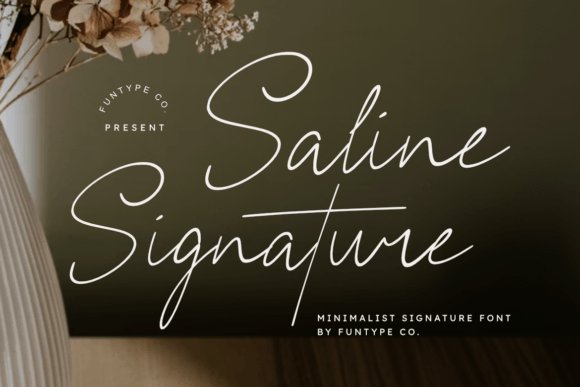
Saline Signature Font stands out as a masterclass in minimalist typography, offering an elegant, monoline flow that perfectly mimics natural handwriting. As a premium signature font, it captures the essence of intimacy and impact, making it an indispensable asset for designers looking to add a personal touch to their projects. Its refined structure balances clean lines with a sophisticated aesthetic, ensuring that every character feels both authentic and polished.
When it comes to real-world applications, this handwritten script truly shines across a variety of high-end design contexts. Whether you are crafting a luxury logo, designing chic boutique branding, or setting up delicate photography watermarks, Saline brings a striking, professional finish to the table. By leveraging this versatile signature font, creators can effortlessly infuse their modern lifestyle designs and corporate identities with a heartfelt, artisanal quality that resonates deeply with audiences.
2. Bastony Signature Font
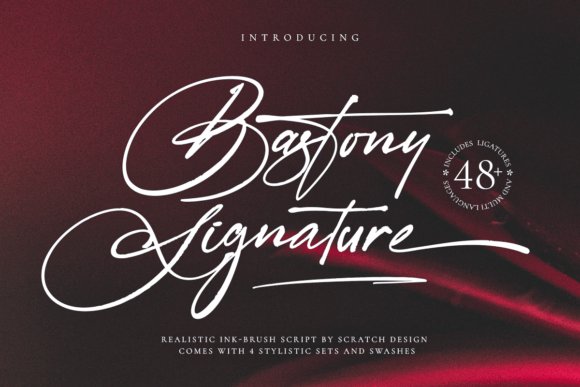
For designers seeking a bold, expressive aesthetic, the Bastony Signature Font delivers an incredibly realistic ink-brush script experience. This typography powerhouse captures the dynamic movement and raw, naturalistic dry brush textures of a genuine hand-painted stroke. Unlike delicate, thin-line alternatives, this dramatic signature font commands attention with its high-contrast weight variations and sweeping, luxurious letterforms. It is crafted to give digital artwork an authentic, bespoke feel that easily bridges the gap between traditional calligraphy and contemporary digital design.
Beyond its striking visual impact, this highly versatile signature font comes fully loaded with over 48 ligatures and elegant swashes spread across four distinct stylistic sets. This extensive character map makes it the ultimate tool for bespoke branding, high-end product packaging, bold magazine titles, and exclusive wedding stationery. If your project demands an unforgettable, handwritten flourish that conveys both artistic flair and premium craftsmanship, Bastony provides the exact dramatic flair needed to elevate your creative portfolio.
3. Buttercake Font
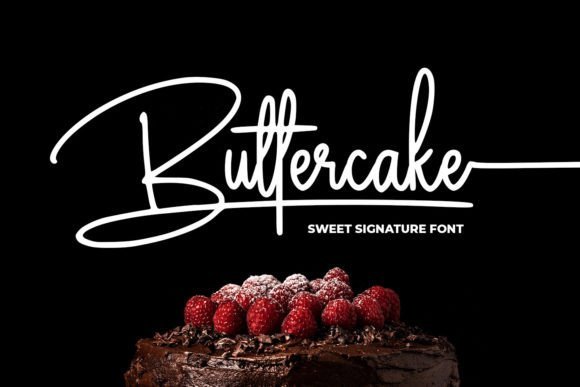
The Buttercake Font is a delightfully sweet monoline signature font that brings a warm, approachable vibe to any creative endeavor. Characterized by its smooth, consistent stroke weight and fluid connectivity, it beautifully replicates the charm of a quick, stylish handwritten note. As an incredibly adaptable signature font, Buttercake offers a relaxed yet refined aesthetic that avoids feeling overly formal, making it an absolute joy to use for designs that require a personal, friendly, and inviting tone.
This charming handwritten script proves to be exceptionally versatile across a multitude of everyday and commercial design projects. Its legibility and casual elegance make it a top choice for crafting memorable logotypes, playful apparel graphics like t-shirts and tote bags, and eye-catching social media banners. By incorporating this lovely signature font into your boutique branding, custom greeting cards, or retail packaging, you easily inject a sense of bespoke authenticity that makes your visual messaging feel uniquely handcrafted and deeply engaging.
4. Brighton Signature Font
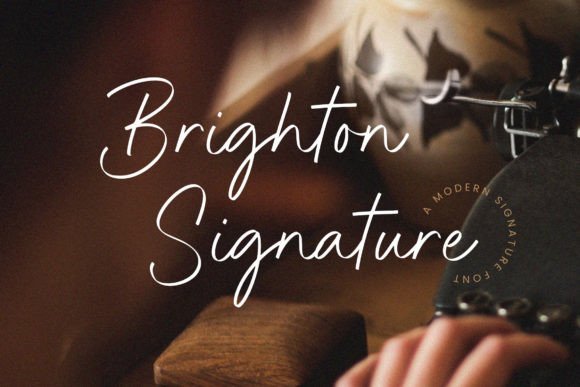
The Brighton Signature Font is a masterful example of a high-end signature font, blending exquisite cursive strokes with an unmistakable air of elegance and sophistication. Crafted to emulate the fluid motion of genuine hand-lettering, this handwritten typeface introduces a bespoke, personal touch to any creative project. Whether you are developing a luxury brand identity or curating an elegant editorial spread, the intricate details and graceful swashes of this script provide an authentic, high-end feel that instantly elevates your typography.
Beyond its stunning visual appeal, Brighton Signature is incredibly versatile and ideally suited for a wide array of applications, from boutique product packaging and chic magazine layouts to elegant wedding invitations and social media graphics. Including both OTF and TTF formats alongside comprehensive multilingual support, this signature style typeface ensures seamless integration into your digital workflow. It is the perfect tool for designers looking to express words with artistic flair, effortlessly transforming a simple background into a captivating visual statement.
5. Sartyan Canish Font
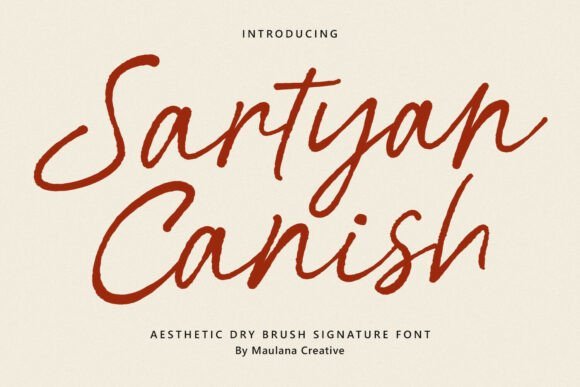
Sartyan Canish is a beautifully sophisticated dry brush signature font that perfectly captures the raw, authentic essence of hand-painted lettering. Unlike overly polished scripts, this typeface embraces a beautifully textured, natural stroke that brings an artistic, deeply personal touch to your typography. By combining the elegant flow of a traditional signature font with the edgy, organic feel of dry brush mechanics, Sartyan Canish delivers a seamless, flowing aesthetic that genuinely mimics real handwriting with effortless, artistic grace.
The elegant yet unrefined aesthetic of this signature style font makes it an absolute must-have for contemporary design projects. It shines brilliantly when used for photography watermarks, upscale branding, lifestyle quote graphics, and stylish social media campaigns that require a touch of human warmth. Complete with a robust set of uppercase and lowercase letters, numbers, punctuations, and carefully crafted ligatures, Sartyan Canish provides designers with all the tools necessary to create striking, cohesive layouts that stand out in any digital or print medium.
6. Jonathan Signature Font
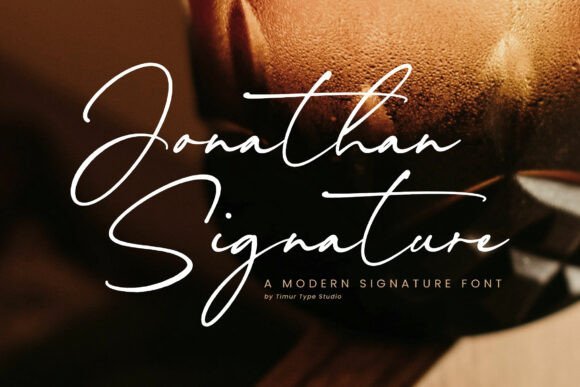
Jonathan Signature stands out as a premier modern signature font, offering a remarkably sleek and elegant aesthetic that breathes life into your typography. This exceptional typeface masterfully blends fluid, cursive strokes with a sharp contemporary twist, resulting in a design that feels both refined and wonderfully casual. Its smooth, flowing lines perfectly capture the essence of a high-end handwritten style, making it an indispensable asset for designers seeking to inject a sophisticated, custom-crafted touch into their visual portfolios.
Highly adaptable for both formal and creative applications, this signature font is the ultimate typographic choice for striking logos, premium branding materials, and upscale event invitations. The natural rhythm of the letters ensures that every word reads like a bespoke piece of art, allowing your brand’s unique voice to shine through with absolute clarity. Whether you are refreshing a corporate identity or designing a luxurious wedding suite, Jonathan Signature provides the perfect balance of professional elegance and inviting warmth.
7. Malinda Signature Font
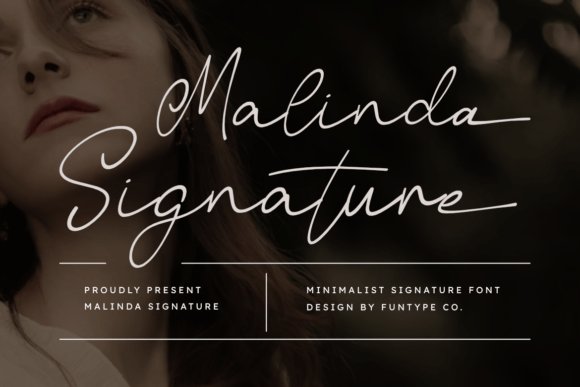
Malinda Signature is an exceptionally beautiful and elegant minimalist signature font, meticulously crafted for designers who demand impactful yet intimate typography. By capturing the essence of a custom handwritten script, it delivers a refined structure paired with a natural monoline flow. This digital signature aesthetic breathes a sense of bespoke luxury into any creative project, allowing your text to feel both striking and deeply heartfelt. It is an ideal choice for creatives looking to elevate their visual identity with a sophisticated handwriting style.
The versatility of this signature font makes it an indispensable asset for a wide array of high-end applications. Whether you are developing chic branding materials, designing minimalist photography watermarks, or constructing modern lifestyle luxury logos, Malinda seamlessly adapts to your needs. Its clean, legible strokes ensure that your visuals maintain a professional polish while still offering that coveted, authentic personal touch that clients and audiences adore.
8. Young Bentley’s Font
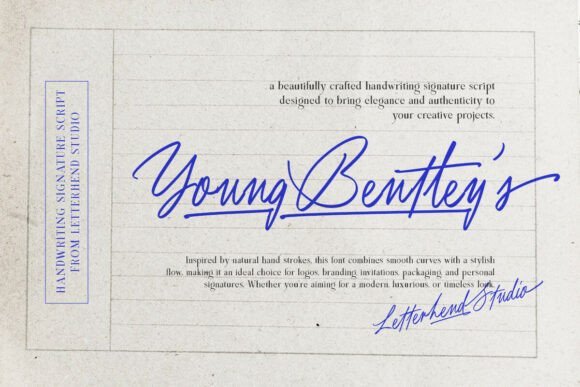
Young Bentley’s is a remarkably stylish handwritten signature font defined by its smooth, natural curves and an effortlessly elegant flow. It masterfully mimics the organic look of genuine pen strokes, instantly injecting modern charm and authenticity into your typographic layouts. By offering the nuanced imperfections of real cursive handwriting, this versatile signature font adds a layer of bespoke class to your designs without ever feeling forced or overly ornate. It is the quintessential typeface for conveying an upscale, yet approachable, brand voice.
When it comes to practical application, this elegant handwriting style shines across a multitude of mediums. It is an absolute standout for sophisticated logo design, high-end branding packages, boutique invitations, and premium product packaging. If your project demands a refined handwritten touch that feels like a personalized digital signature, Young Bentley’s delivers exceptional readability alongside its undeniable aesthetic appeal, ensuring your creative work leaves a lasting impression.
9. Melbourne Lighthouse Font
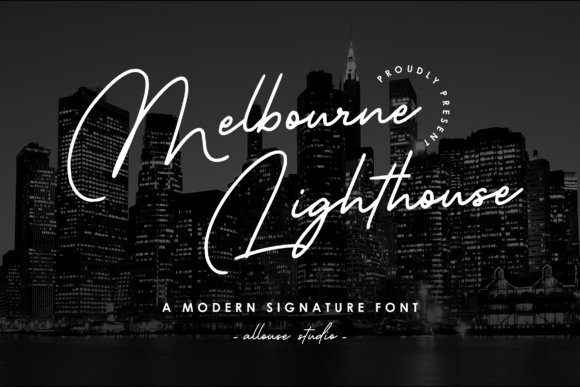
Melbourne Lighthouse stands out as a premier modern signature font, expertly blending contemporary typographic trends with the timeless appeal of authentic cursive scripts. Designed to mimic a swift, confident handwriting style, it effortlessly bridges the gap between casual elegance and professional polish. Every character flows seamlessly into the next, providing a custom hand-lettered aesthetic that transforms standard text into a compelling visual statement. It is a fantastic choice for designers seeking a digital signature font that feels both vibrant and grounded.
The true strength of this modern handwritten script lies in its incredible adaptability across varied design disciplines. Melbourne Lighthouse is perfectly suited for eye-catching product packaging, cohesive branding projects, and striking editorial layouts for magazines. Furthermore, its expressive nature makes it a go-to signature font for wedding invitations, engaging social media graphics, or simply overlaying poetic typography onto evocative background imagery. It guarantees that your message is delivered with a distinct, personalized flair.
10. Salina Script Font
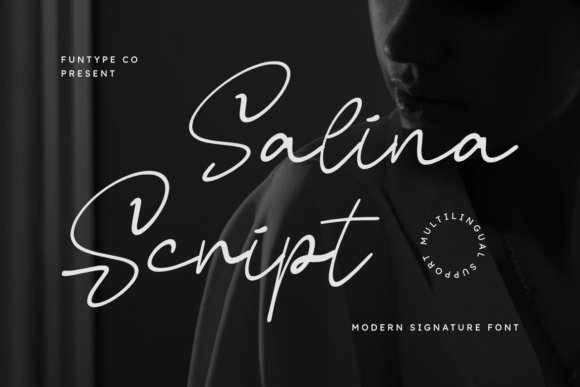
Salina Script is a remarkably beautiful and elegant modern signature font that breathes life into impactful and intimate typography. Crafted with a refined structure and a natural monoline flow, this typeface captures the essence of authentic handwriting while maintaining absolute legibility. It effortlessly bridges the gap between classic calligraphy and contemporary design, offering a versatile solution for creatives seeking a sophisticated aesthetic. The delicate balance of its strokes ensures that every word looks like a carefully penned autograph, making it a standout choice in the realm of script typography.
Ideal for elevating chic branding campaigns, this cursive masterpiece shines beautifully across a multitude of applications. Salina Script acts as the perfect handwritten watermark for professional photography, adding a bespoke, personalized touch to your pristine images. It is equally at home in luxury logo design, modern lifestyle editorials, and upscale packaging. By integrating this fluid, natural script into your workflow, you guarantee a visual presence that is striking, highly professional, and undeniably heartfelt.
11. Welcome Honey Font
Welcome Honey is a remarkably stylish and elegant signature font defined by its exceptionally smooth, single-line design. The distinct monoline flair of this typeface lends it a sleek, free-flowing appearance that beautifully mimics the effortless rhythm of natural handwriting. Unlike heavier scripts, Welcome Honey maintains an airy, delicate presence on the page, making it a stellar option for designers who want to evoke a sense of personalized luxury without overwhelming the viewer. Its clean, continuous strokes radiate a gentle sophistication that immediately captivates the eye.
When it comes to practical application, this authentic handwriting style font excels at adding a classy, intimate touch to practically any creative project. It is highly recommended for crafting elegant boutique branding, romantic wedding invitations, and bespoke social media graphics. Whether used as an eye-catching focal point for a lifestyle blog header or as a subtle, cursive watermark on professional photography, Welcome Honey infuses your designs with an enduring, bespoke charm that truly resonates with audiences.
12. Signature Present Font
Signature Present is a meticulously crafted signature font that effortlessly exudes sheer elegance and timeless sophistication. Designed to inject a touch of personal flair and high-end exclusivity into your projects, this typeface represents the pinnacle of modern digital calligraphy. Characterized by its exquisite strokes, graceful curves, and authentic handwritten feel, Signature Present mimics the fluid motion of a master penman. It stands out prominently with its unique script aesthetic, providing your text with a deeply personalized touch that standard typography simply cannot achieve.
The flowing lines and precise detailing of this elegant cursive font make it a truly versatile and valuable addition to your creative toolkit. It is an impeccable choice for designing opulent wedding invitations, premium business cards, and sophisticated greeting cards where a distinctive, stylish script is paramount. Furthermore, Signature Present is perfect for high-end branding materials, boutique packaging, and photography watermarks, acting as a genuine, luxurious autograph for your brand. By utilizing this exquisite typeface, you ensure your designs radiate a sense of refinement, transforming any everyday layout into a memorable signature piece.
13. Cashmere Font
Cashmere Font is a beautifully fresh, handmade signature font that brings an unmistakable sense of authenticity to any creative project. Designed to mimic the natural flow of real cursive handwriting, this typeface offers a delicate, artisanal aesthetic that instantly elevates your visual presence. Whether you are building a modern brand identity from scratch or simply refreshing an existing one, its fluid strokes and personal touch make it a staple in any designer’s toolkit for crafting logos, bespoke packaging, and striking business cards.
Beyond basic branding, Cashmere truly shines when used as a decorative element to accentuate your products. Its authentic handwritten style makes it an incredible asset for sophisticated social media graphics, elegant wedding invitations, and personalized merchandise. By integrating this versatile signature font into your workflow, you can effortlessly achieve that sought-after, bespoke typographic look that resonates with audiences seeking high-end, individualized aesthetics.
14. Delyra Script Font
Elevate your brand’s visual identity with the effortless grace of Delyra Script, a premier modern signature font designed for creatives who demand elegance. Characterized by its fluid, hand-drawn strokes and beautifully organic rhythm, this captivating typeface masterfully captures the essence of a personal, authentic handwritten signature. The sweeping loops and refined terminals exude a quiet luxury, making it an indispensable asset for conveying a high-end, sophisticated tone across all your marketing materials.
Delyra Script is far more than just a standard cursive typeface; it is a definitive signature of style that transforms ordinary designs into bespoke art. It stands out as the ultimate choice for boutique logos, luxurious wedding stationery, and polished social media branding. Furthermore, photographers and artists will find it exceptionally well-suited for professional watermarks, ensuring their work is protected with a touch of personalized class. If you need a signature font that effortlessly balances professionalism with creative flair, Delyra Script delivers on every front.
15. Jackson Signature Font
Jackson Signature Font presents a masterclass in minimalist typography, offering a classic signature font experience with a beautifully distinct monoline weight. Unlike variable-width calligraphy, its uniform line thickness provides a smooth, contemporary look that perfectly mirrors a sleek pen stroke. This refined handwritten style captures an elegant yet approachable vibe, making it a fantastic typographic centerpiece for modern branding campaigns, minimalist logotypes, and impactful quote graphics that demand attention.
The true power of this monoline signature font lies in its exceptional versatility across both digital and physical mediums. Jackson Signature translates beautifully onto tangible merchandise, making it a highly recommended choice for trendy t-shirt layouts, stylish tote bag prints, and elegant greeting cards. In the digital realm, it effortlessly enhances social media banners and promotional graphics with its authentic handwriting aesthetic. Whether you are crafting a personal blog header or an entire corporate identity, this font delivers a clean, personalized finish that never goes out of style.
16. Smooth Radiance Font
Smooth Radiance is a premier signature font that effortlessly mimics the organic, flowing movement of a natural handwriting style. Crafted to bring an air of elegance to your typography toolkit, it offers designers a remarkable level of customization. With two distinct uppercase variations and an extensive library of stylistic alternates and ligatures, this typeface allows you to construct a completely bespoke autograph style. The fluidity of the strokes ensures that every word looks authentically penned, bridging the gap between digital typography and human artistry.
When it comes to practical application, Smooth Radiance truly shines in high-end branding and identity projects. It is an exceptional choice for designing sophisticated logos, personalized photography watermarks, and elegant wedding invitations. By integrating this versatile script into your printed materials or digital assets, you instantly elevate the composition with a handcrafted, professional finish. Whether you are developing a luxury boutique’s visual identity or curating a lifestyle blog, this handwritten signature font provides the perfect blend of readability and bespoke charm.
17. Father Days Font
Elevate your creative projects with the authentic, grounded aesthetic of the Father Days Font. This distinctive handwritten signature font brilliantly captures the raw essence of a natural pen stroke, merging an organic, spontaneous flow with a bold and sophisticated character. Designed to feel deeply personal yet refined enough for commercial use, its sharp, elegant curves establish a premium visual hierarchy that commands attention in any composition. It avoids the overly delicate lines sometimes found in script typography, offering instead a confident, assertive autograph style that resonates with modern audiences.
Father Days is highly adaptable, making it the ultimate typographic choice for high-end branding, luxury logos, and editorial layouts that require a bespoke human touch. It excels beautifully as a professional watermark for photography, ensuring your brand stands out without overpowering the imagery. From crafting upscale wedding stationery and fashion branding to curating engaging social media quotes, this signature font injects a timeless yet contemporary feel into your designs. By leveraging its uniquely tailored letterforms, designers can effortlessly forge a memorable, cohesive identity across both digital and print mediums.
18. Perfect Signature Font
True to its name, the Perfect Signature Font is a captivating handwritten typeface engineered to infuse your design projects with an unmistakable air of elegance and sophistication. Defined by its fluid strokes, varied baseline, and impeccably balanced letterforms, this signature font flawlessly replicates the nuanced pressure and pacing of real cursive handwriting. It captures the very essence of a personal touch, allowing digital designs to radiate authenticity and bespoke craftsmanship. The seamless connectivity between characters ensures a smooth reading experience while maintaining the stylistic flair of a master penman.
Ideal for a multitude of creative endeavors, this typeface serves as a powerful asset for modern branding, upscale event invitations, and striking logo designs. Incorporating the charm of a handwritten signature adds a layer of exclusivity to product packaging, editorial headers, and boutique business cards. Whether you are revamping a high-fashion label or simply need an elegant script for a personalized project, the timeless beauty of this font guarantees a lasting impression. Embrace this versatile typography solution to elevate your visual identity with grace and professional polish.
19. Signature Font
Welcome to the aptly named Signature Font, a heartfelt and beautifully flowing cursive typeface that is intricately entwined with an artisanal touch. This signature font captures the essence of natural handwriting, delivering a delicate design that brings a harmonious equilibrium to a diverse range of artistic pursuits. Its graceful letterforms effortlessly instill a delightful and amorous atmosphere, challenging design norms and propelling every digital or print canvas into the extraordinary. Whether you are seeking that perfect handwritten aesthetic or a cursive style with authentic texture, this typeface delivers unparalleled warmth.
It stands out as the optimal choice for creating unique brand identities and sophisticated, bespoke logos. When applied to wedding materials or intimate greeting cards, this signature style script renders an elite, personalized feel that resonates with recipients. Furthermore, it effortlessly elevates fashion brochures, lifestyle blogs, and promotional campaigns to the realm of luxury and elegance, infusing them with an undertone of relaxed refinement. Transcend the realm of the ordinary and give your next creative project a truly custom vibe with the charming understatement of this versatile signature font.
20. Bellissa Signature Font
Introducing the Bellissa Signature Font, a modern signature font crafted with exceptional natural precision to replicate the authentic fluidity of human penmanship. This signature typeface is an absolute dream for graphic designers focused on upscale branding, immersive websites, and high-end editorial designs. Every stroke and curve has been carefully engineered to mimic the confident sweep of a high-quality ink pen, bringing a striking, personalized touch to your visual assets. Complete with comprehensive multilingual support, essential punctuation, and beautiful stylistic ligatures, this script font offers everything you need to craft seamless text.
Beyond its foundational features, the Bellissa Signature Font excels in applications where elegance and authenticity must coexist. It is the perfect handwritten font for crafting memorable photography watermarks, boutique logos, and engaging social media headers that demand a custom, signature style. By blending contemporary chic with the timeless appeal of an authentic signature font, Bellissa empowers creatives to build brand narratives that feel both deeply personal and highly professional. Elevate your typography toolkit with this magnificent cursive script.
21. Stylish Signature Font
The Stylish Signature Font is a modern handwritten script typeface that perfectly captures the refined elegance of natural penmanship with its beautifully flowing style. Defined by its long, sweeping strokes and delicate curves, this signature font is an exceptional choice for designs that require a highly personal and sophisticated touch. The typeface flawlessly combines smooth legibility with undeniable artistic flair, giving every single word a graceful and authentic appearance. Whether you are aiming for a minimalist aesthetic or a lush, luxurious design, this versatile signature style script adapts seamlessly to your creative vision.
Ideal for crafting high-end branding, bespoke wedding invitations, and memorable logos, this handwritten font brings a profound sense of charm and professionalism to the table. It is incredibly effective for personal signatures, fashion-forward editorial layouts, social media posts, greeting cards, and premium packaging. With its masterful balance of thin and bold strokes, the Stylish Signature Font conveys both vulnerability and confidence. It remains a go-to choice for creative professionals who want to effortlessly weave a high-quality signature font into their commercial or personal portfolio work.
22. Daily Coffee Font
The Daily Coffee Font is an effortlessly aesthetic handwritten signature font that brings a warm, personal touch to any creative project. Characterized by its unique, uninterrupted flow and relaxed cursive typeface style, this font masterfully mimics the organic feel of real handwriting. As a premium signature font, it strikes the perfect balance between casual elegance and modern readability, making it an essential asset for designers looking to infuse a sense of authenticity into their digital or print media.
When it comes to practical application, Daily Coffee truly shines in lifestyle and feminine branding contexts. It is incredibly versatile, seamlessly elevating cafe or restaurant logo designs, modern wedding invitations, and chic social media graphics. Beyond standard branding, this handwriting-style script is an excellent choice for custom stationery, blog headers, typography art quotes, and personalized merchandise like mugs or apparel. If you need a signature font that effortlessly conveys an inviting and bespoke aesthetic, Daily Coffee is a magnificent choice.
23. Kieran Munroe Font
For designers seeking an elevated sense of luxury, the Kieran Munroe Font emerges as a beautiful and elegantly minimalist signature font. Crafted specifically for impactful yet intimate typography, this typeface features a refined structure accompanied by a natural, unhurried monoline flow. The clean lines and sophisticated curves of this cursive typeface ensure your text remains highly legible while exuding an aura of exclusivity. It captures the authentic essence of a professionally penned autograph, securing its position as a top-tier signature font for high-end markets.
The striking, professional, and heartfelt aesthetic of Kieran Munroe makes it a powerhouse for upscale visual identities. It is flawlessly suited for photography watermarks, luxury boutique logos, and chic lifestyle branding campaigns. Because it provides a polished, modern look without feeling overly ornate, this elegant script also works beautifully for sleek business cards, editorial magazine layouts, and premium packaging design. Provided in both OTF and TTF formats with extensive multilingual support, this versatile signature font integrates effortlessly across all major design platforms.
24. Merysville Font
Merysville Font is a breathtakingly modern signature font that distinguishes itself through its sweeping, decorative tails and undeniably elegant touch. Designed to emulate the fluid motion of a quick, stylish autograph, this handwritten script brings a distinctively timeless style to the table. Its dynamic baseline and organic flow give the illusion of an authentic ink pen, making this cursive typeface an ideal choice for projects that demand a bespoke, handwritten aesthetic. The beautifully crafted swashes transform standard text into a truly captivating visual experience.
The versatility of this elegant signature font makes it an absolute favorite for a wide array of high-profile design projects. Merysville looks absolutely spectacular when featured on romantic wedding invitations, sophisticated thank you cards, and memorable corporate business cards. Beyond event stationery, it acts as a striking focal point for luxury logo designs, modern marketing materials, and engaging social media typography. If you are looking to create a lasting impression with your typography, this standout signature font will undoubtedly help you craft spectacular, unforgettable designs.
25. Sakage Font
The Sakage Font is a remarkably elegant signature font that effortlessly captures the sophisticated essence of a custom handwriting style. With its delicate curves and refined thinness, this script typeface brings a beautifully natural handwritten aesthetic to any design canvas. Unlike many digital fonts that feel rigid or overly uniform, Sakage embraces the subtle imperfections of a genuine ink pen, making it perfect for creatives who want to convey a sense of intimacy and high-end exclusivity through their typography.
This versatile signature font is highly recommended for luxury branding, boutique logos, and elegant editorial layouts. Because of its light weight and fluid motion, it functions flawlessly as a stylish photography watermark or an authentic autograph at the bottom of a personalized newsletter. If you are looking to elevate your next project with a touch of bespoke charm, integrating Sakage into your typography arsenal will undoubtedly leave a lasting, professional impression.
26. This Brother Font
This Brother Font offers a refreshing twist on the traditional signature font by incorporating a highly textured brush style into its sweeping letterforms. This contemporary script typeface balances the casual flow of everyday cursive with the bold, artistic impact of a dry brush stroke. It is incredibly effective at injecting an energetic and youthful vibe into your typography, ensuring your message stands out with a distinctly cool, hand-painted aesthetic that feels both approachable and striking.
The rugged yet legible nature of this brush-style signature font makes it an absolute powerhouse for a wide variety of merchandise and display applications. Whether you are designing custom apparel like t-shirts and tote bags, or crafting eye-catching social media banners and rustic packaging, This Brother adapts beautifully. It is also a fantastic choice for modern wedding invitations and edgy logo designs where a smooth, delicate calligraphy typeface might feel too traditional or soft.
27. Morgause Font
Morgause Font is a quintessentially modern signature font masterfully designed to infuse your creative projects with elegance, personality, and unmatched authenticity. By striking the perfect balance between casual legibility and sophisticated flair, this script typeface delivers a clean, premium signature look that stands out without ever appearing overly manufactured. Every sweeping ligature and tailored letterform in Morgause feels intentional, mimicking the effortless grace of a well-practiced, professional autograph.
Whether you are establishing a new visual identity or simply adding a handwritten touch to your digital presence, this signature font works wonders across multiple mediums. It serves as an impeccable choice for high-end fashion labels, bespoke photography watermarks, and polished editorial layouts. Furthermore, its timeless styling ensures that wedding designs, boutique logos, and social media graphics radiate a luxurious handwritten charm that instantly connects with your audience and elevates your brand.
28. Signature Font
The Signature Font stands as the absolute epitome of sophisticated minimalism, offering a sleek and highly professional aesthetic for modern brand identities. Capturing the effortless, fluid motion of a natural pen stroke, this elegant typography feels as though it was handwritten by a master calligrapher. It is incredibly well-suited for high-end logos, corporate business cards, and customized digital autographs. By incorporating this distinct signature font into your creative workflow, you immediately provide your clients with a profound sense of exclusivity and personalized luxury that mass-produced typefaces simply cannot achieve.
Functionally, the long, horizontal sweeps of this script make it an exceptional choice for header text, editorial layouts, and photography watermarks. Pair this versatile signature font with a bold, all-caps serif to establish a high-fashion visual contrast that feels both contemporary and timelessly classic. Whether you are finalizing luxury product packaging, designing upscale event invitations, or building a boutique brand from the ground up, this modern typeface delivers that crucial finishing touch. Furthermore, its built-in PUA encoding ensures that all decorative swashes and special characters are instantly accessible across your favorite design platforms.
29. Autography Font
Autography Font emerges as a truly gorgeous and fresh take on the classic signature font, infusing every project with an unmistakably modern feel and authentic charm. Designed to mimic the organic flow of everyday handwriting, this elegant script brings a warm, personal touch to any digital or print canvas. Designers and branding experts will quickly fall in love with its natural curves and spontaneous lettering, which perfectly capture the essence of a custom-crafted autograph. It breathes life into creative assets, ensuring your text resonates with audiences seeking genuine, human-centered brand experiences.
This dynamic signature font is an absolute powerhouse for a wide variety of commercial and personal applications, from boutique clothing labels and cosmetic packaging to lifestyle blog headers and social media quotes. The Autography Font pairs beautifully with clean, geometric sans-serifs, allowing the script’s authentic personality to shine as the primary focal point of your layout. With its incredibly versatile letterforms and fluid baseline, it guarantees a stylish, highly readable result that elevates your typography and leaves a lasting, sophisticated impression on your clientele.
30. Rinature Font
Rinature Font is a riveting, highly stylish signature font that pushes the boundaries of personalized typographic design. Carefully crafted to maintain an elegant and readable aesthetic, this typeface captures the beautiful intricacies of cursive handwriting. What sets Rinature apart is its incredible versatility; it comes fully equipped with three distinct variations of uppercase letters and a comprehensive set of lowercase stylistic alternates from A to Z. This flexibility allows designers to seamlessly combine characters, creating a truly bespoke signature font appearance that never looks repetitive or artificially generated.
Highly suitable for a vast array of high-end design projects, this natural script thrives when utilized for logo creation, corporate branding, premium business cards, and boutique product labels. The Rinature Font adds an undeniably sophisticated signature touch to book cover designs, clothing tags, and editorial spreads. By leveraging its extensive alternate characters, you can craft distinct, memorable typographic signatures that instantly elevate your brand’s perceived value. It is the perfect typographical tool for artists and designers who demand both stylistic flair and effortless usability in their daily creative endeavors.
31. Background Signature Font
Capture the intimate, authentic essence of a handwritten note with the Background Signature Font. This delicate, monoline signature font stands out by offering an exceptionally fluid, organic aesthetic that feels genuinely personal. Unlike more rigid cursive scripts, this handwritten typography brilliantly mimics the natural speed and varying pressure of a real pen gliding across paper. The result is a stunning collection of long, elegant descenders and breezy letter connections that feel truly one-of-a-kind, making it a perfect digital signature font for modern creatives.
When it comes to practical application, this versatile signature font is the ultimate tool for crafting sophisticated photography watermarks, personal branding for consultants, and high-end boutique logos. You can seamlessly use it as a striking secondary font on wedding invitations to impart a bespoke signed with love aesthetic, or incorporate it into business card designs for a touch of approachable elegance. It pairs wonderfully with classic serif typefaces, providing a soft, humanizing counterpoint to highly structured layouts. Furthermore, the font supports PUA encoding, granting designers effortless access to its full library of stylistic ligatures and swashes.
32. Brittany Signature Font
Introducing the Brittany Signature Font, a beautifully unique handwritten typeface that masterfully blends graceful cursive elements with refined sophistication. Delicately crafted with a distinctively feminine touch, this signature font elevates digital lettering to an entirely new level of versatility. It possesses an effortless, flowing rhythm that mimics a carefully penned autograph, making it an essential asset for designers looking to infuse a sense of romance and exclusivity into their typography toolkit. Whether you are aiming for a chic, modern vibe or timeless elegance, this script delivers flawless results.
The creative possibilities with the Brittany Signature Font are virtually limitless. Its distinctive, elegant styling is tailor-made for high-end wedding invitations, ensuring your save-the-dates and RSVPs will be treasured as bespoke keepsakes. Beyond event stationery, this handwritten script is highly effective for elevating simple packaging designs, boutique branding, and elegant business cards. It also shines in the digital space; incorporating this signature font into your social media graphics and Instagram quotes will give your posts an irresistible, high-fashion allure that effortlessly captivates your audience.
33. Westonia Font
Westonia Font is a remarkably elegant signature font that effortlessly captures an authentic, casual handwriting style. Designed to reflect the effortless flair of a quick yet stylish autograph, this cursive typeface bridges the gap between sophisticated calligraphy and relaxed everyday penmanship. The beautifully imperfect baseline and smooth, sweeping curves give this signature font a highly realistic, organic energy that breathes life into any canvas. It is the perfect typographic choice for creators who want their designs to feel genuinely human, approachable, and artistic.
Ideal for a vast array of creative endeavors, the Westonia Font truly excels as a go-to choice for social media branding and lifestyle content. Whether you are looking for an eye-catching calligraphy script for your Instagram graphics or a charming handwritten font for personalized DIY projects, it turns any simple idea into a masterful piece of digital art. From crafting custom apparel and stunning blog headers to designing personalized greeting cards and elegant logo marks, this highly adaptable signature font ensures your typography will always leave a memorable, personalized impression.
34. Riley Declan Font
Riley Declan is a fresh, modern, and stylishly flowing handwritten signature font that instantly elevates any creative project. Characterized by its beautifully well-balanced letterforms, this typeface brings a distinctly personal, authentic touch to digital and print canvases alike. Whether you are aiming for a high-end luxury aesthetic or a relaxed, organic feel, the versatility of this signature style ensures it matches a wide pool of contemporary designs. It captures the fluid motion of ink on paper, making it an indispensable tool for designers seeking to add a bespoke handwritten flair to their portfolios.
As a highly adaptable signature font, Riley Declan stands out as the ultimate choice for creating eye-catching logos, cohesive brand identities, and elegant social media quotes. We highly recommend incorporating it into personalized stationery, boutique apparel tags, and creative photography watermarks. When you add this exquisite typeface to your most ambitious ideas, you will immediately notice how it makes your compositions come alive with an authentic, custom-made vibe. Pair it with a clean sans-serif to let its expressive script loops truly take center stage.
35. Andalus Font
Andalus is a stunning monoline signature font that beautifully captures the essence of sleek, continuous line writing. This minimalist yet expressive typeface offers a smooth, even stroke weight that guarantees excellent legibility while retaining the charm of a custom hand-drawn script. Its understated elegance makes it a highly sought-after typography asset for modern creatives looking to inject a personalized, artisanal aesthetic into their work without overwhelming the overall composition. The effortless glide of its characters makes it an ideal signature font for projects requiring a touch of refined simplicity.
The versatility of Andalus shines through across a multitude of practical and commercial applications. It is exceptionally well-suited for striking branding packages, bespoke t-shirt designs, and stylish tote bag prints. Furthermore, this monoline signature font acts as a powerful visual anchor for greeting cards, engaging web banners, and dynamic social media graphics. By utilizing its flowing ligatures and natural rhythm, you can craft unforgettable logos and brand marks that feel both uniquely human and highly professional.
36. Heartbeat Font
Infuse your digital and physical designs with profound emotion and grace using the Heartbeat font, a delicate monolinear script that practically dances across the page. This evocative typeface is defined by its elegant loops, airy feel, and sweeping flourishes on the ascenders and descenders, perfectly capturing the romantic essence of a handwritten love letter. The thin, consistent line weight delivers a modern, fine-line aesthetic that is currently dominating trends in minimalist branding, boutique packaging, and even delicate tattoo art. It serves not just as a writing style, but as a powerful signature font capable of conveying genuine sincerity and high-end sophistication.
As an incredibly versatile signature font, Heartbeat works exceptionally well as a primary branding tool for wedding planners, portrait photographers, and creative entrepreneurs seeking a premium identity. It pairs phenomenally well with a light, airy serif to maintain a harmonious, upscale look across all visual assets. Beyond paper goods like anniversary cards and wedding vows, this PUA-encoded typeface is perfect for intricate laser-cut wooden signs, custom jewelry engravings, and sleek vinyl wall decals. With effortless access to all alternate characters and swashes, this signature script ensures your next project will tell your story with unparalleled beauty and authentic charm.
37. Romento Font
Romento is a premier modern signature font that flawlessly bridges the gap between classic elegance and contemporary typography. This luxurious typeface captures the essence of authentic digital handwriting, offering flowing, cursive letterforms that command attention. By blending traditional calligraphy with a sleek, modern aesthetic, it serves as the perfect cornerstone for high-end branding, premium packaging, and exclusive visual identities.
What truly sets this elegant typography tool apart is its extensive collection of distinctive swashes and alternate characters for lowercase letters. These decorative elements provide unparalleled flexibility, allowing designers to craft highly customized, bespoke logo designs and captivating marketing materials. Whether you are elevating a corporate identity or adding a personal touch to custom stationery, Romento transforms standard text into exquisite handwritten art.
38. Magnificent Signature Font
Magnificent Signature is a beautifully crafted signature font designed to replicate the effortless, organic flow of authentic penmanship. With its natural shape and fluid strokes, this calligraphy typeface breathes a refined yet approachable energy into your design toolkit. The elegant handwritten style perfectly captures the spontaneity of a real signature, making it an indispensable asset for creators seeking a stylish and genuine aesthetic.
Beyond its visual charm, this cursive script is incredibly versatile across a multitude of high-end design applications. It effortlessly adds a sophisticated, natural touch to bespoke wedding invitations, elegant branding campaigns, and engaging social media graphics. If you are looking to infuse your creative projects with a personalized, hand-drawn feel, this stunning digital signature guarantees a striking and memorable typographic finish.
39. Callient Font
Callient stands out as a highly versatile modern signature font, meticulously designed to deliver crisp, fluid strokes reminiscent of professional hand lettering. This sleek cursive typeface beautifully captures the essence of a personalized digital signature, bringing an air of exclusivity, refinement, and contemporary flair to your text. It is the ultimate choice for designers and marketers looking to establish a sophisticated and authentic brand voice.
One of the most powerful aspects of this elegant branding typeface is its full PUA encoding, which ensures that users can effortlessly access a wealth of intricate glyphs and sweeping swashes without requiring specialized design software. From striking photography watermarks and sophisticated product labels to memorable advertising layouts and quote graphics, Callient offers boundless creative potential. It effortlessly elevates any bespoke logo design or social media post with its flawless, hand-crafted charm.
40. Signaturia Font
When searching for the ultimate signature font, Signaturia stands out with its incredibly natural and stylish flow. This elegant script captures the essence of personalized branding by mimicking the organic stroke of a real pen. What truly sets it apart are the stunningly elegant tails positioned at the beginning and end of each letter, giving every word a bespoke, handwritten style that feels effortlessly chic. It also features clever binding elements that allow specific letter combinations to connect seamlessly, enhancing the authentic, custom calligraphy script vibe.
Beyond its visual appeal, this signature font is remarkably user-friendly for designers of all skill levels. You do not even need specialized OpenType-supported software to access the beautiful beginning and ending swashes, as the creators have thoughtfully separated them for maximum accessibility. Whether you are crafting luxury product packaging, sophisticated logos, or personalized stationery, Signaturia brings an authentic handwriting touch that instantly elevates your design work with an air of exclusivity.
41. Overthinker Font
Overthinker is a remarkably lovely signature font that radiates sophisticated charm through its delicate curves and fluid, flowing lines. Unlike rigid typography, this graceful script breathes life into your text, offering a refined aesthetic that mirrors a masterfully crafted handwritten autograph. It is an exceptional choice for designers aiming to inject an authentic, romantic handwriting style into their work, perfectly capturing the delicate nuances of traditional penmanship while maintaining excellent digital legibility.
The versatility of this signature font makes it a powerhouse for a wide array of creative endeavors. It is absolutely ideal for elevating the elegance of wedding invitations, crafting high-end logotypes, or designing captivating social media graphics and branding materials. Furthermore, Overthinker is fully PUA encoded, meaning you can access all of its gorgeous alternate glyphs and sweeping swashes with absolute ease. If your project demands a touch of upscale refinement and effortless beauty, this elegant handwriting font delivers spectacular results.